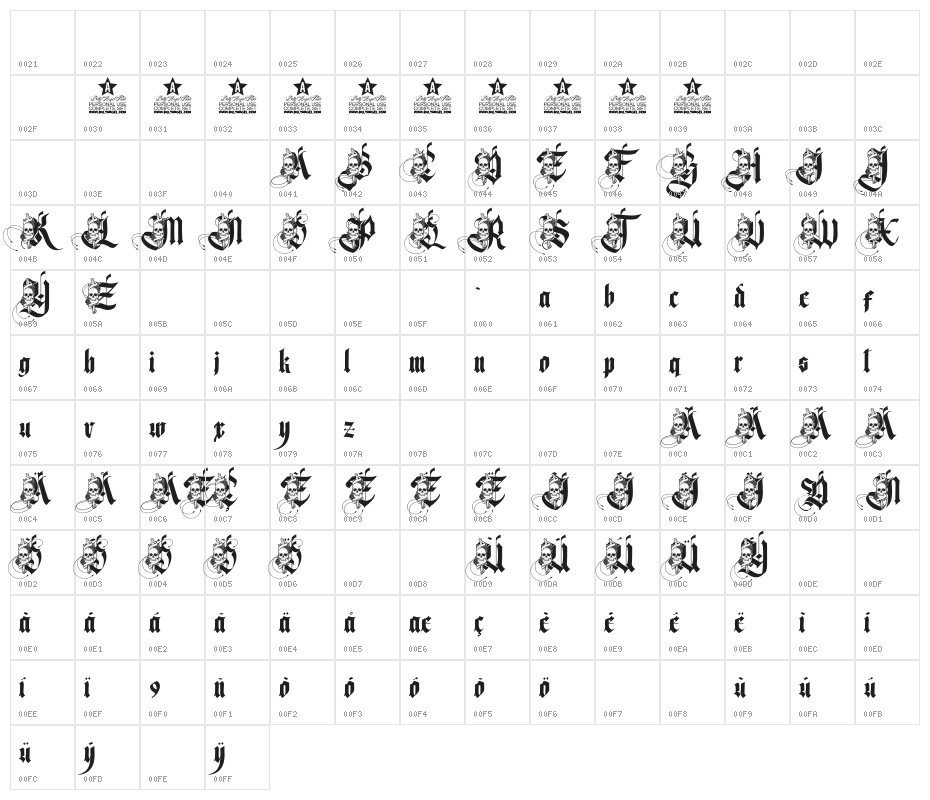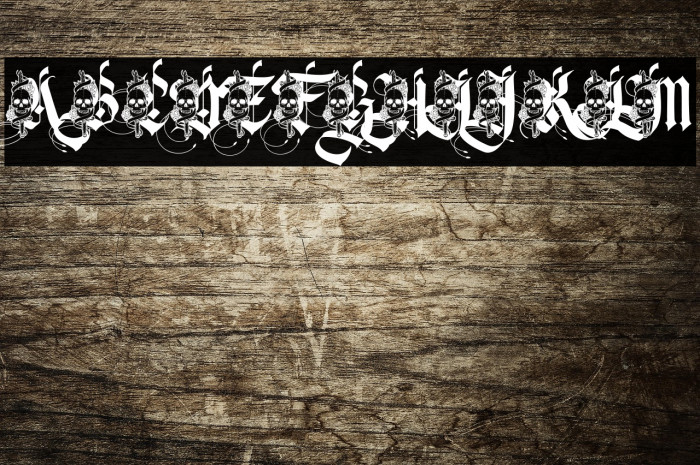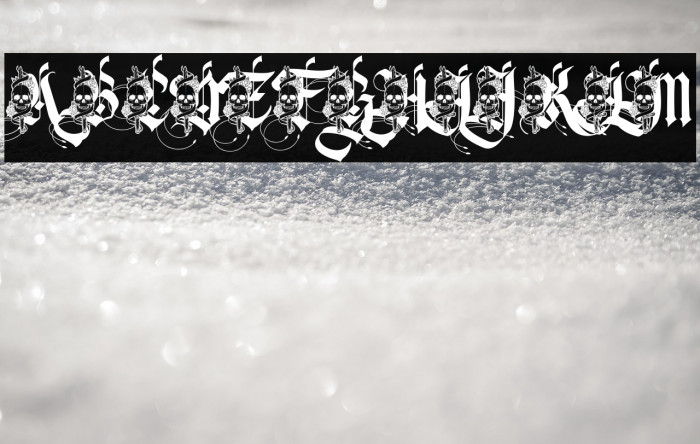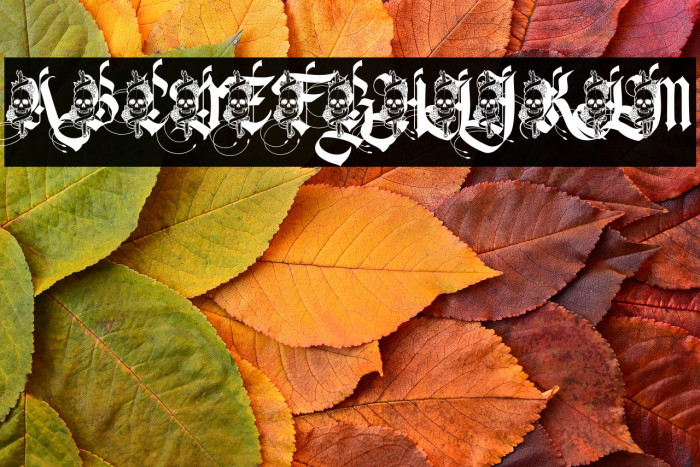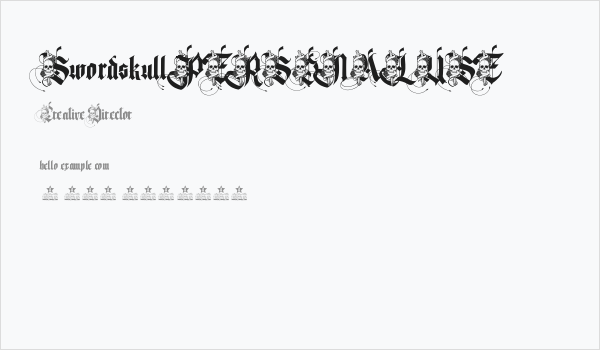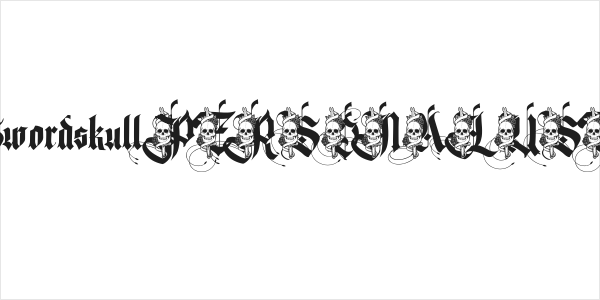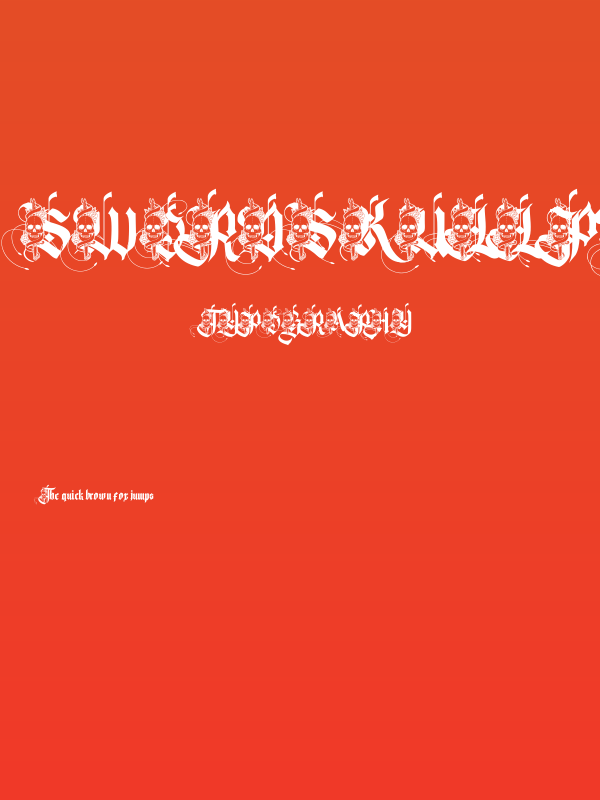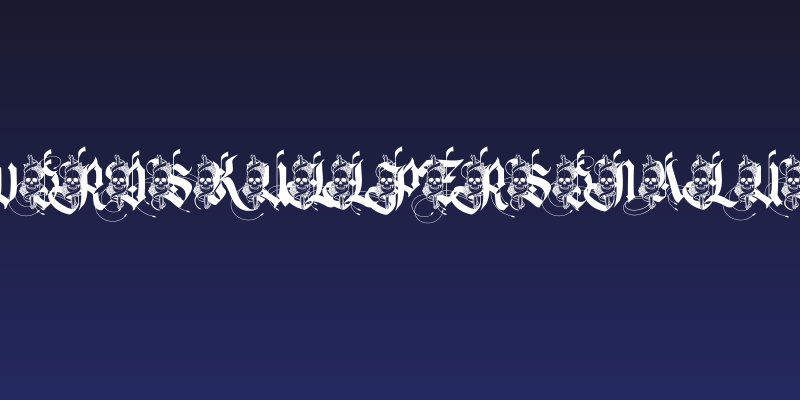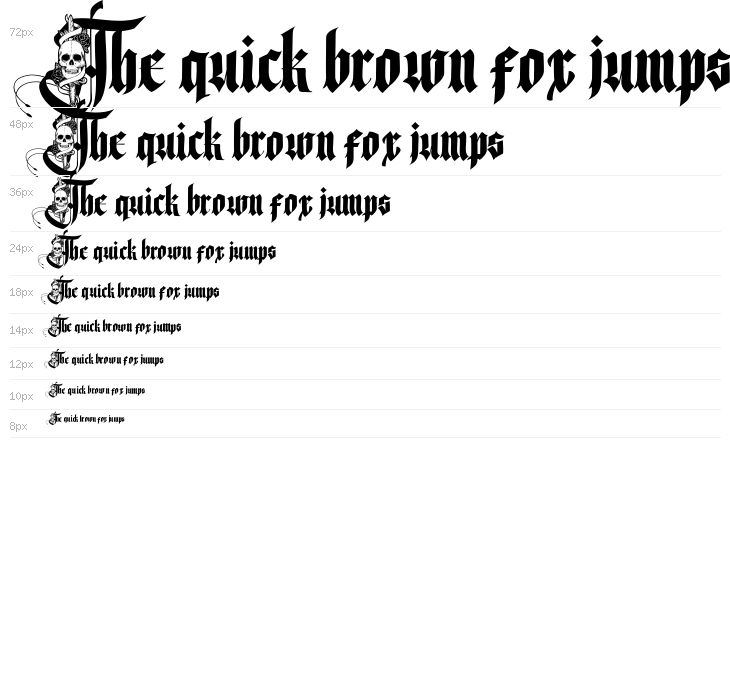
Swordskull PERSONAL USE Font
Swordskull PERSONAL USE Description
This font features a striking and bold blackletter style with intricate details. The uppercase letters are adorned with skull motifs, adding a gothic and edgy flair. The lowercase letters maintain the traditional blackletter form, characterized by sharp, angular lines and dramatic strokes. The font's overall appearance is both decorative and intense, making it suitable for projects that require a strong visual impact. The combination of skulls and traditional blackletter elements creates a unique and memorable aesthetic.
| Overall Style | Gothic, Decorative |
| Proposed Projects | Ideal for tattoo designs, gothic-themed posters, album covers, and Halloween invitations. |